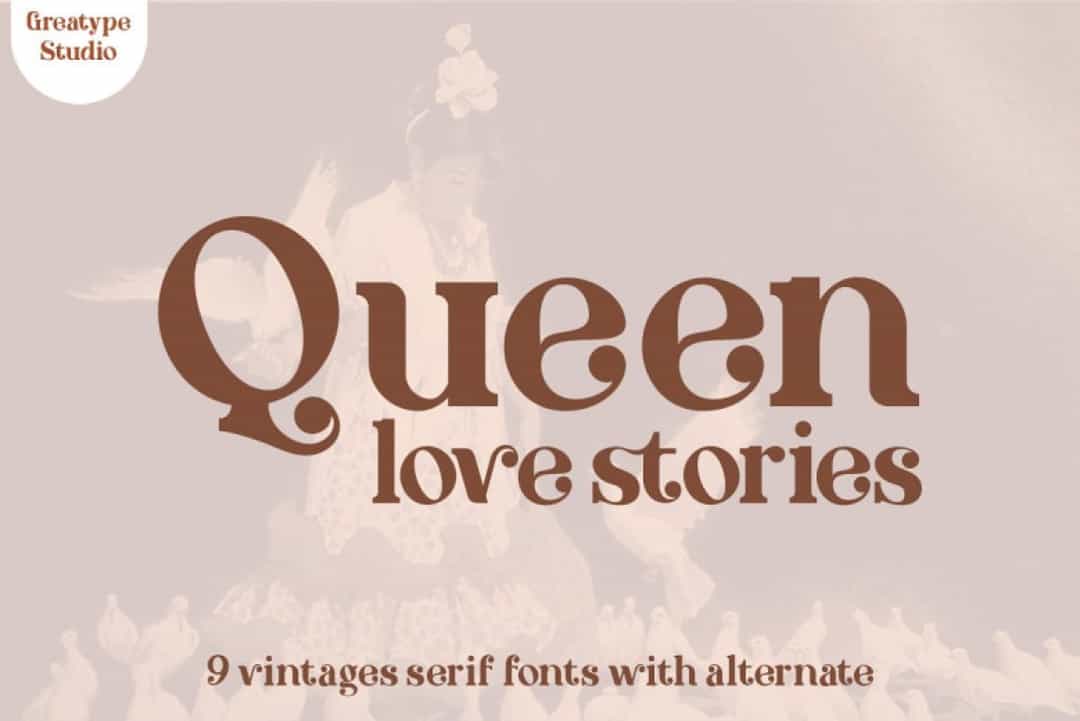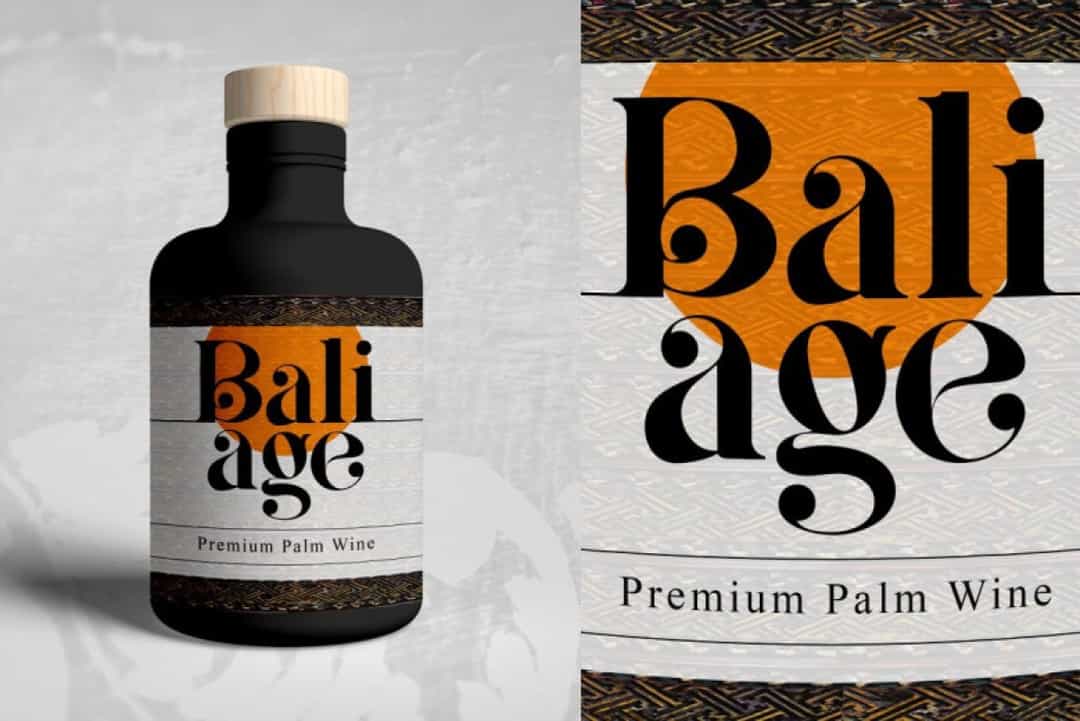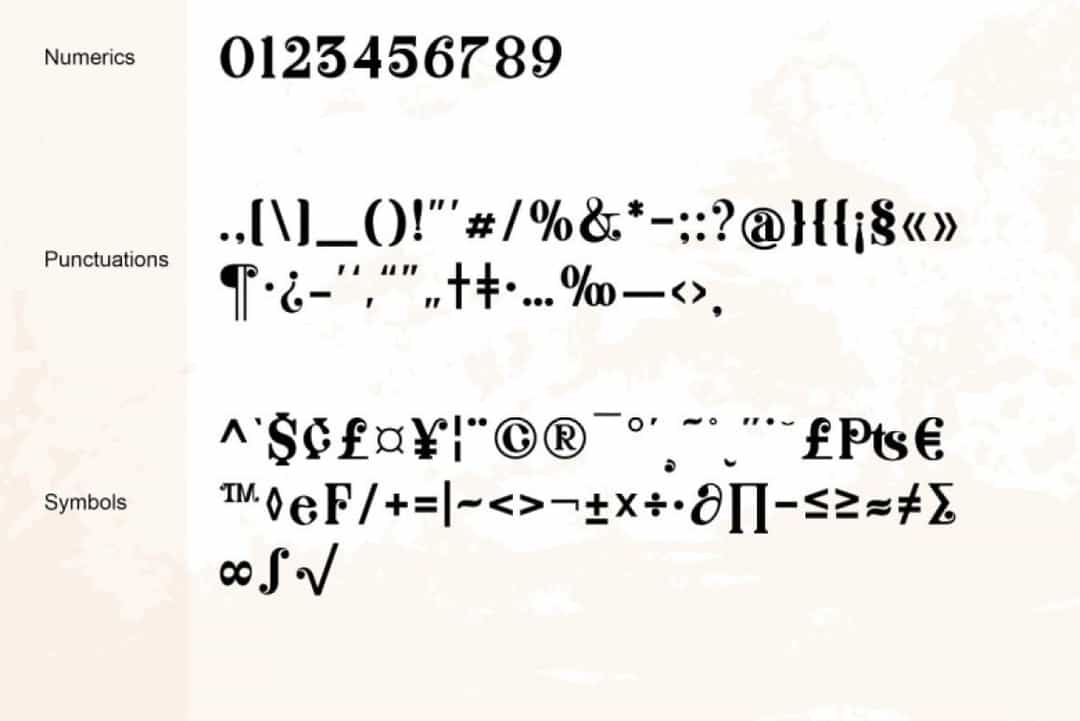
Queen Love Stories is an old-fashioned and modern display serif font with feminine characteristics and an extravagant appearance, making an impressionful first impression. This typeface can be embossed onto logos, invitations, stationery wedding designs and advertisements on social media; social posts printed quotes; packaging for product labelling purposes and designs of products and photography as well as watermarks at events or even layouts in magazines.